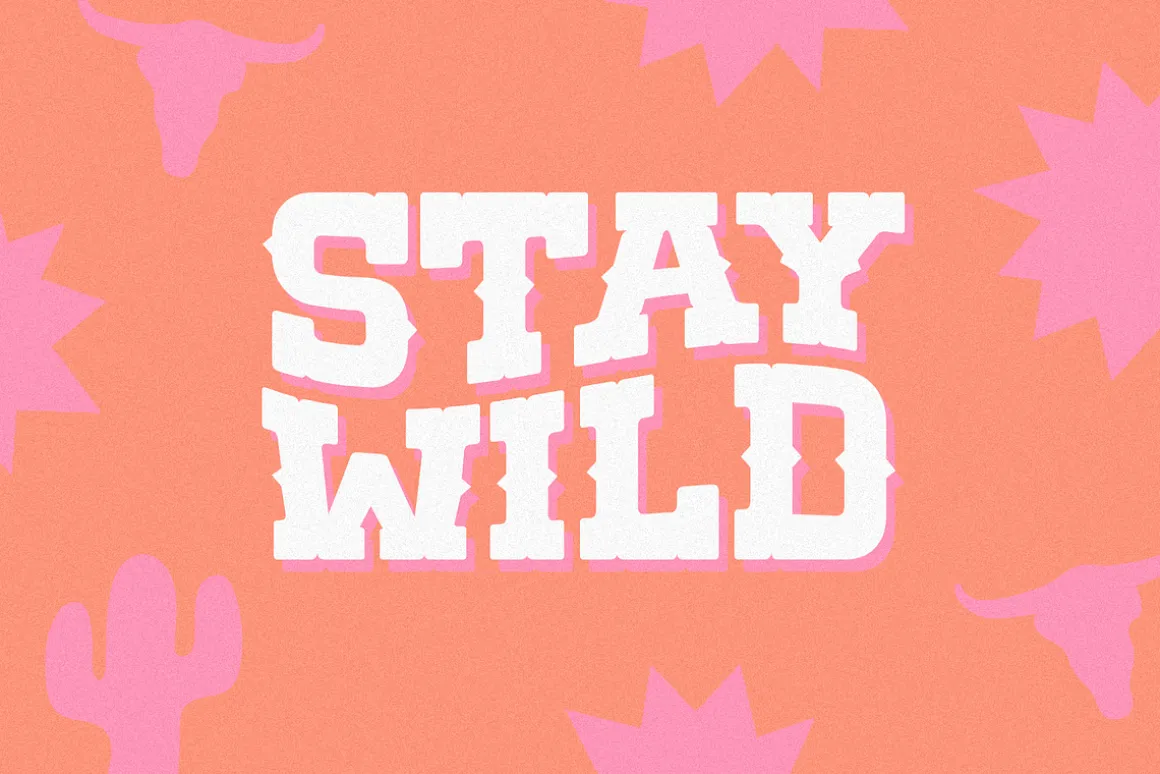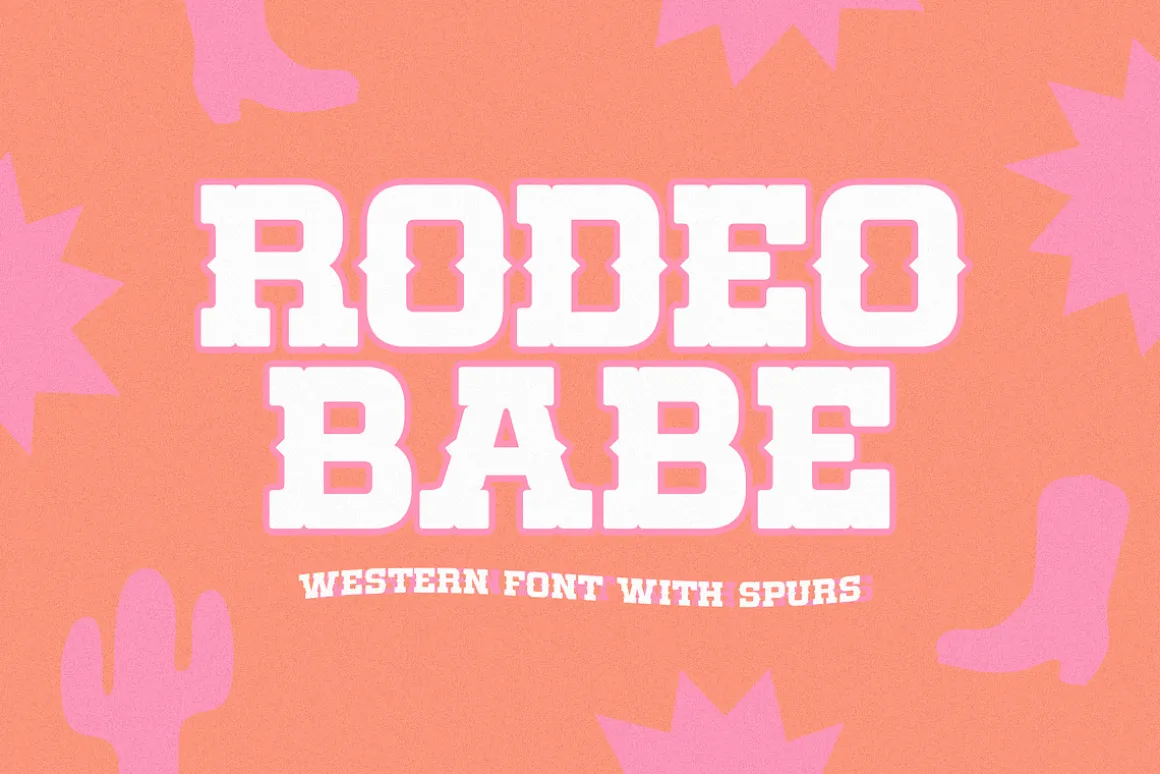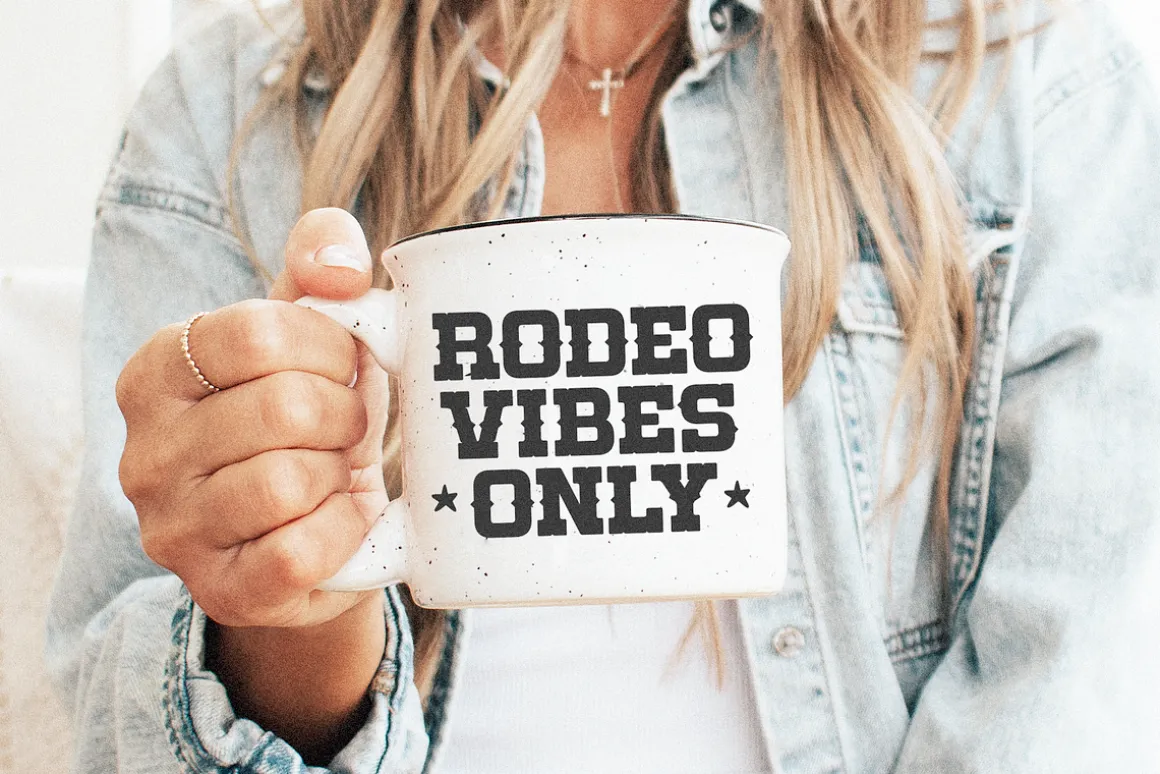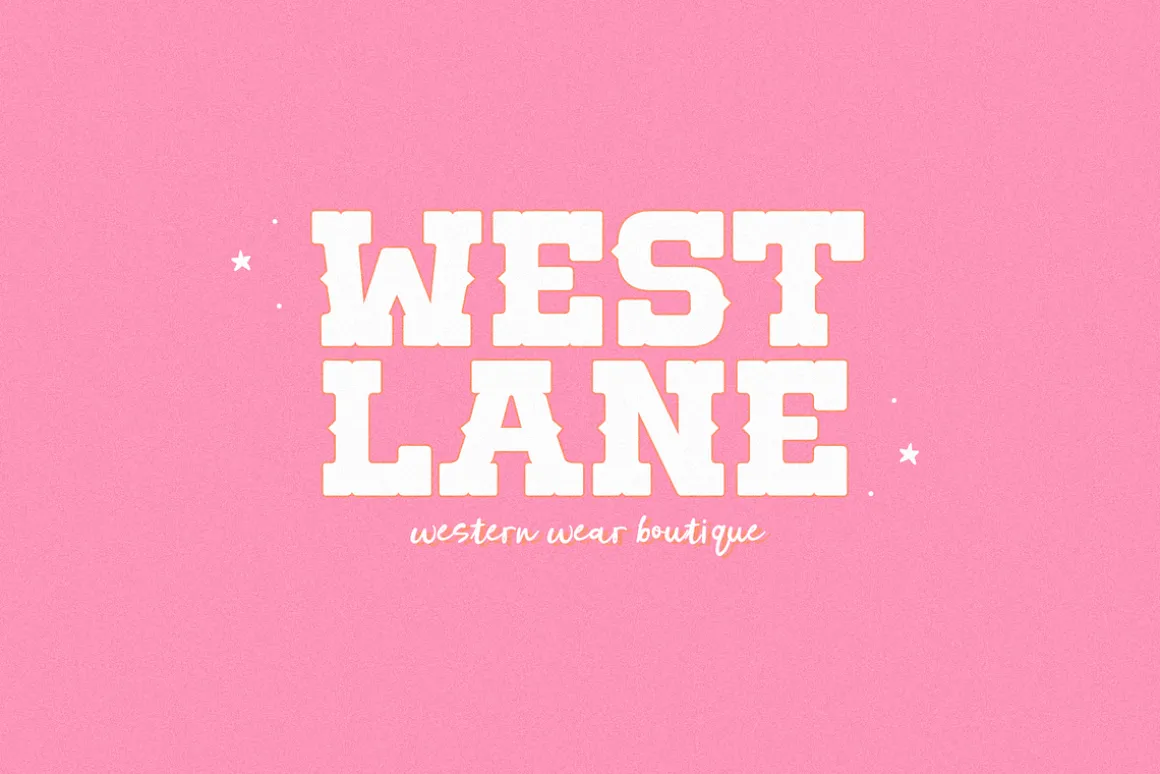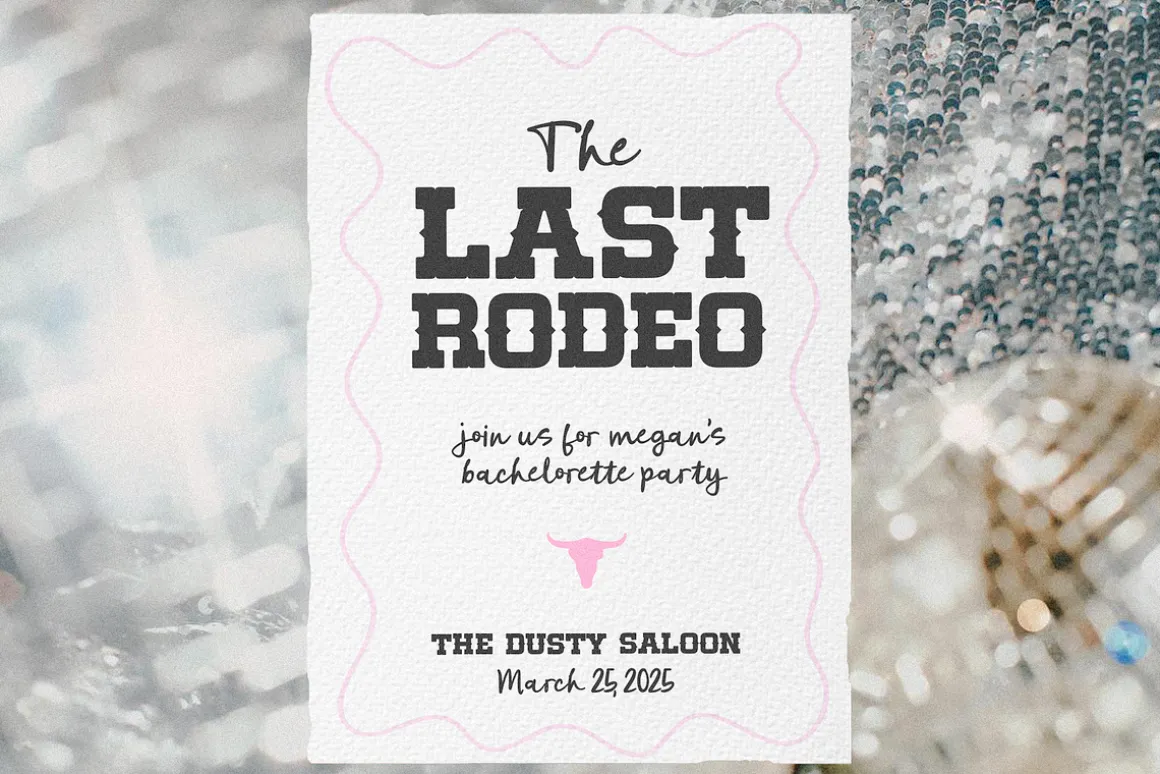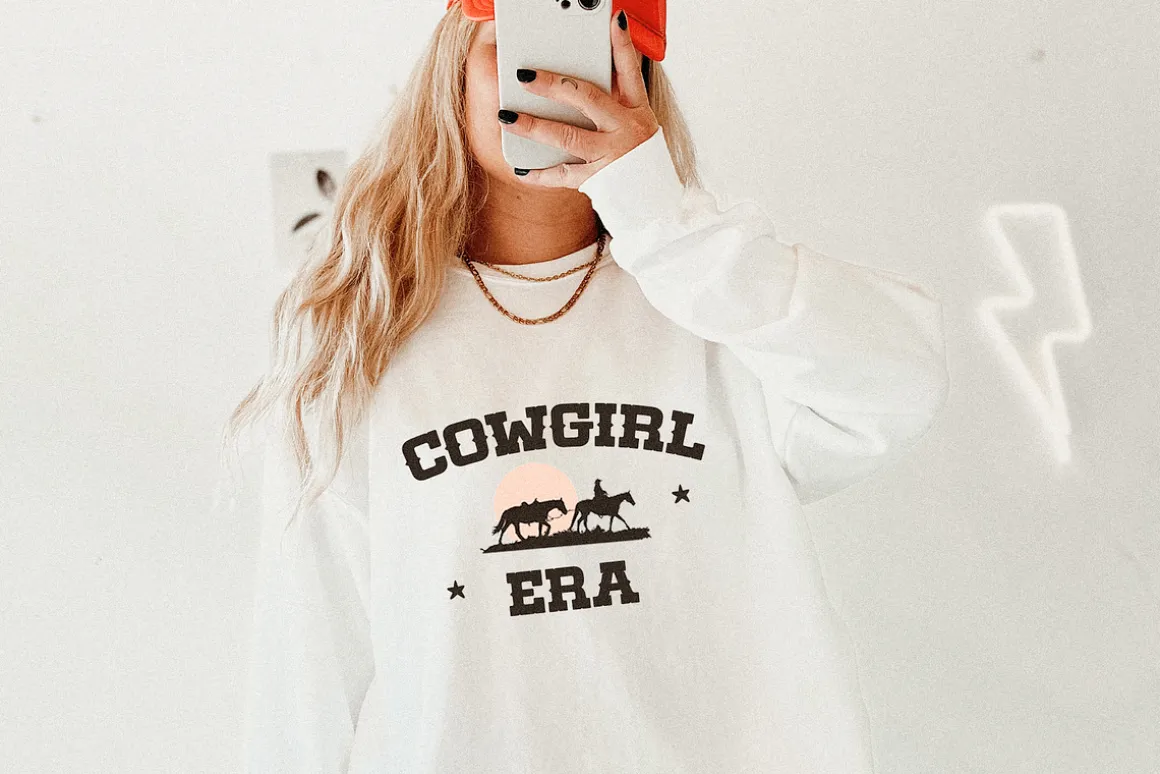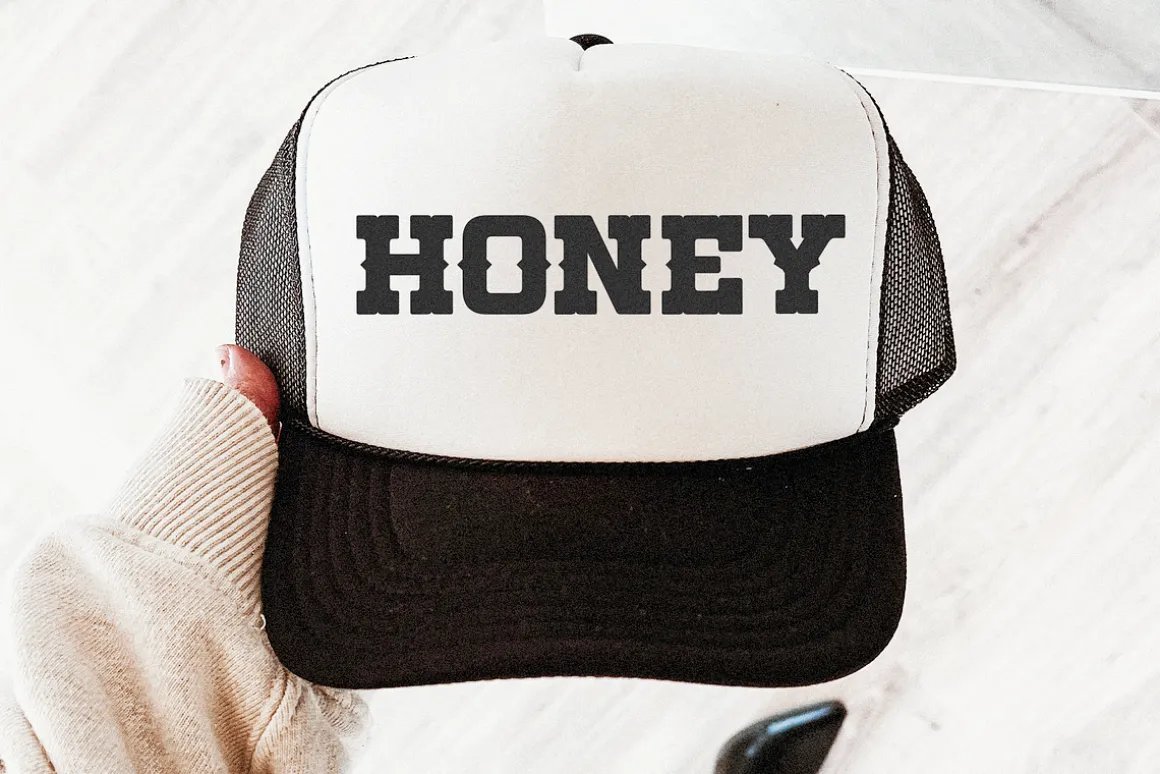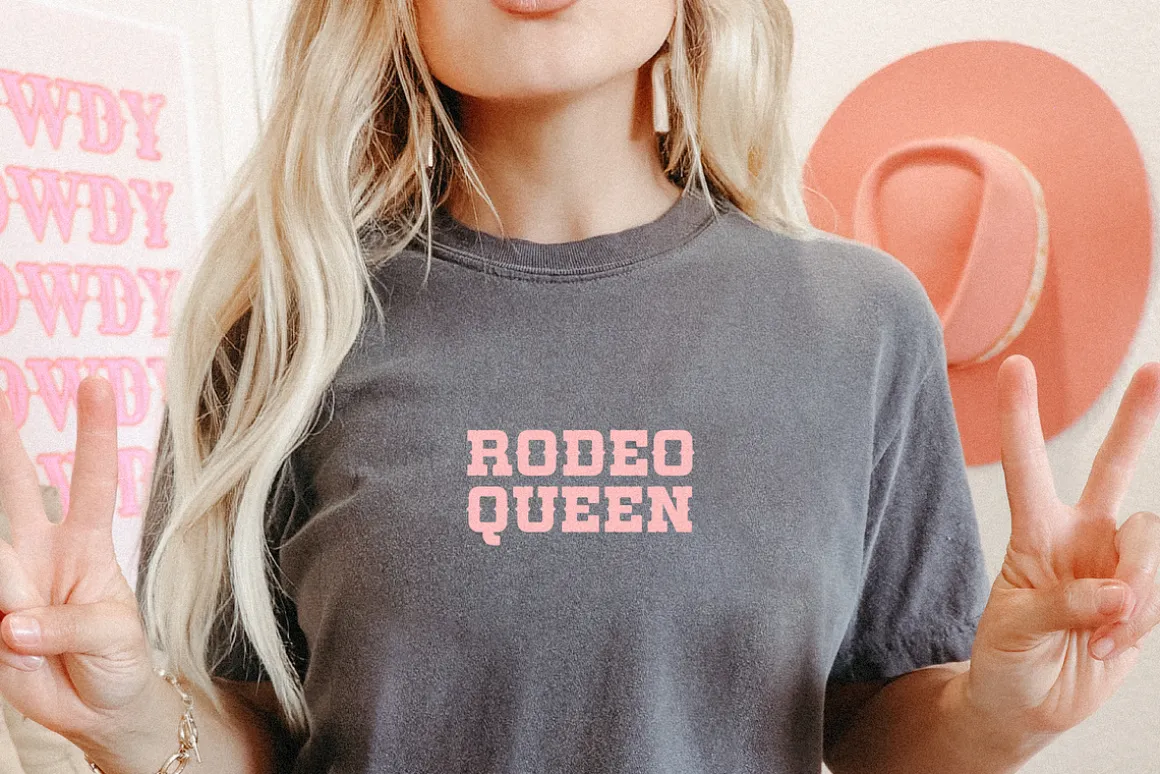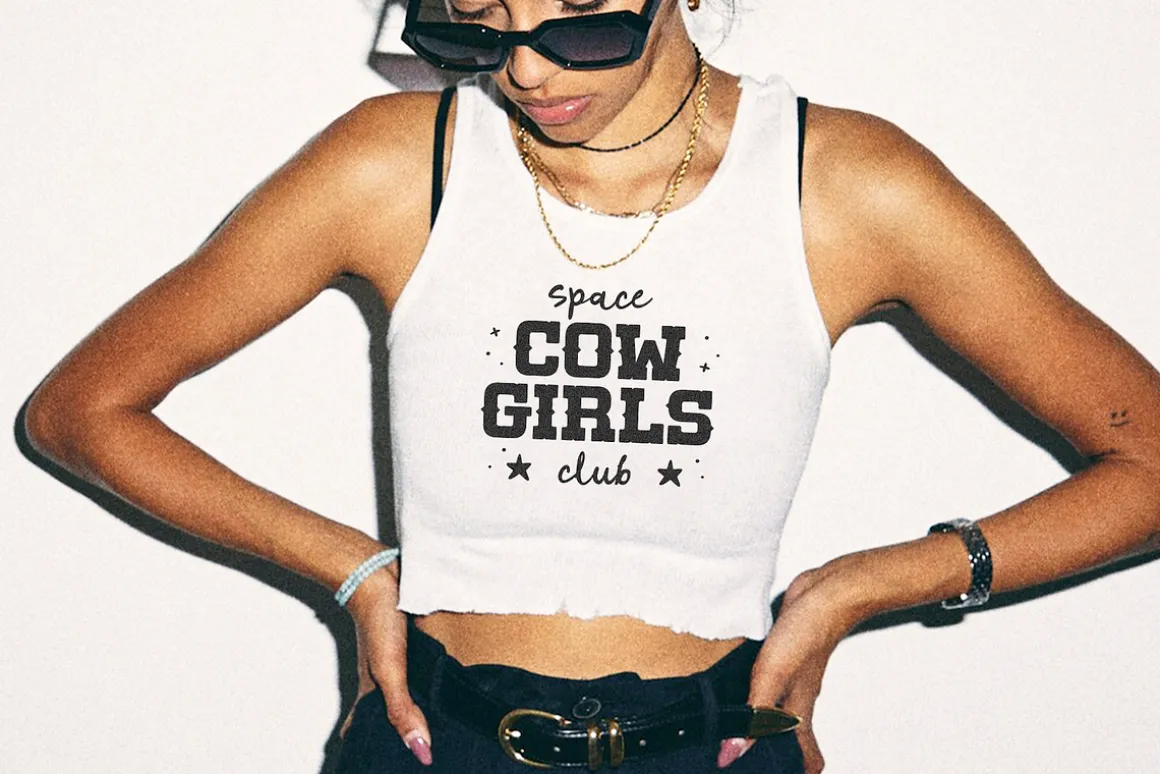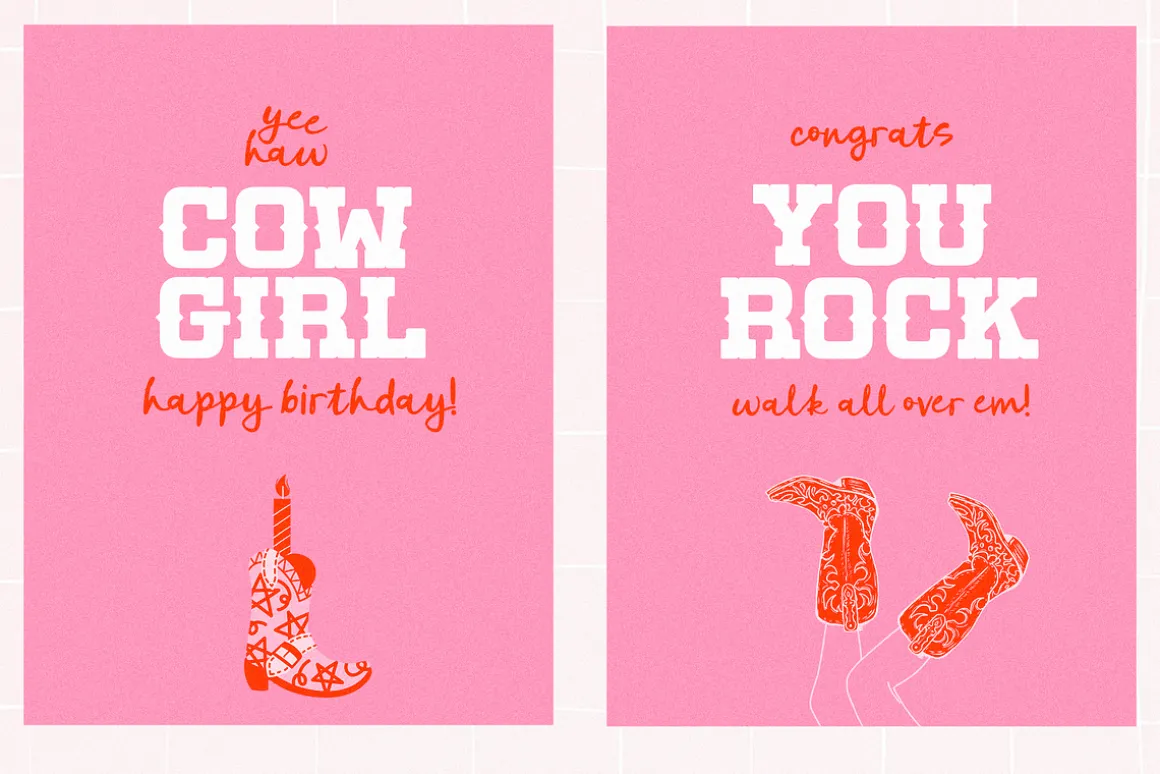
Rodeo Babe is a western font with spurs.
This font is perfect for western designs, cricut projects, canva, shirts, stickers, teachers, goodnotes, planners, lasers, western logos and more!